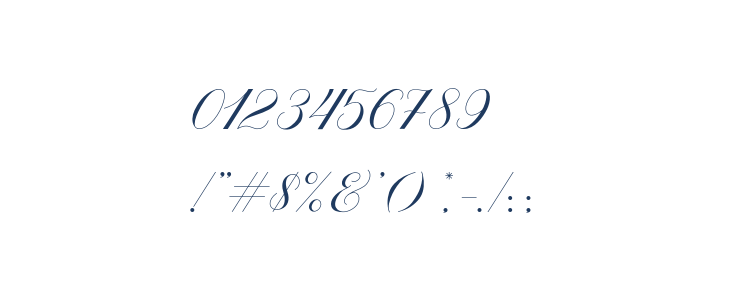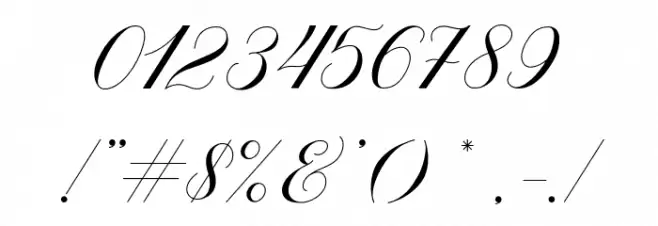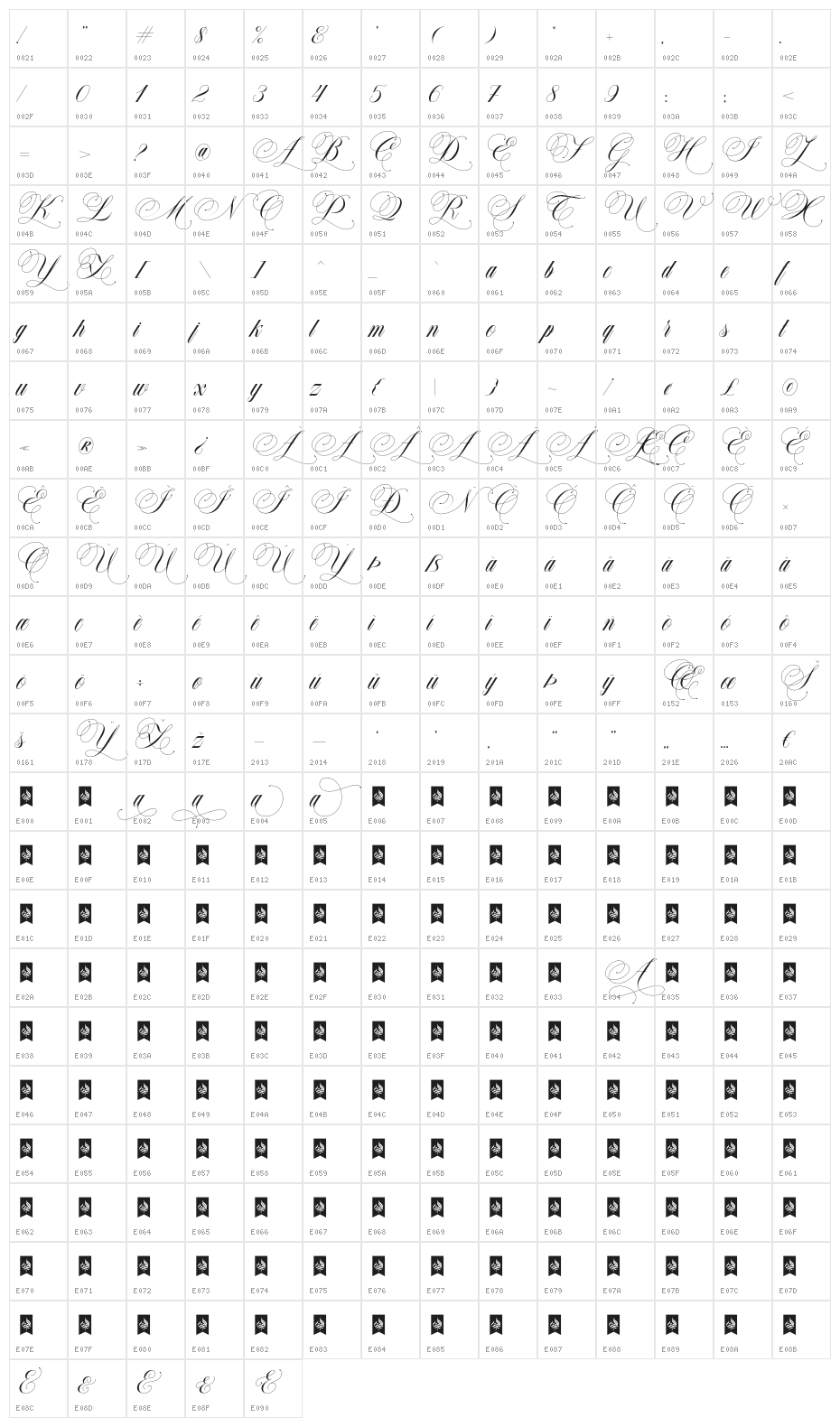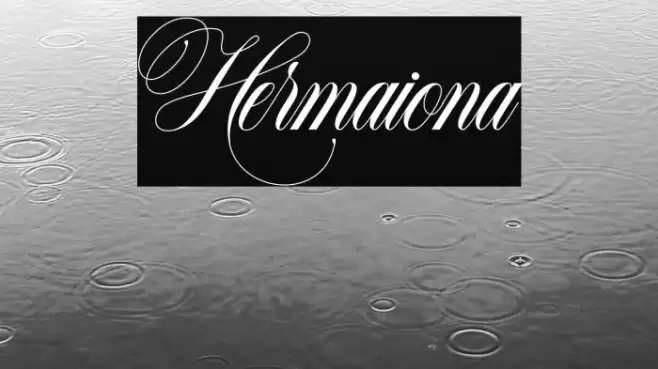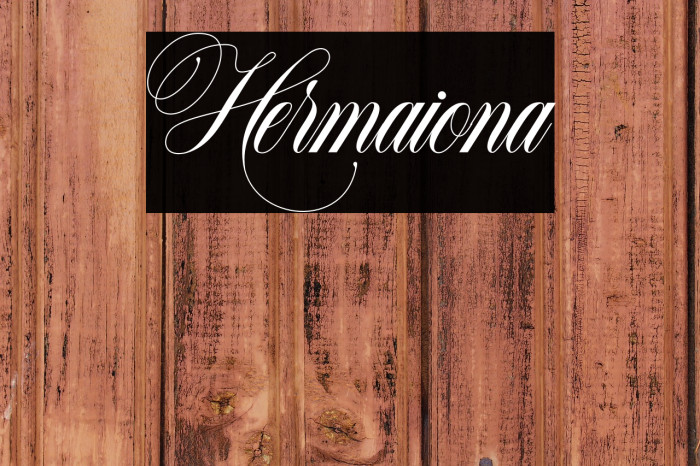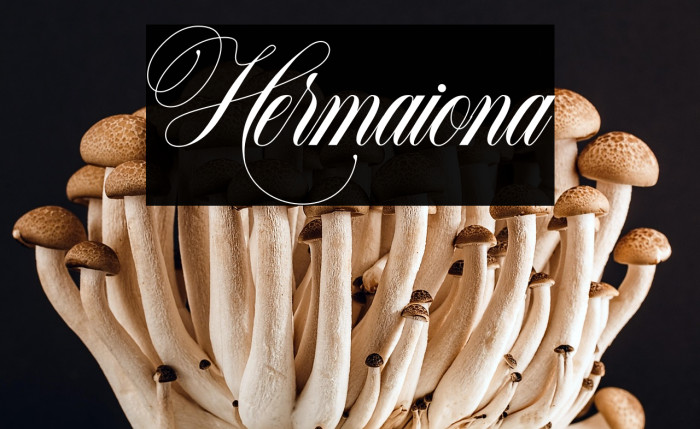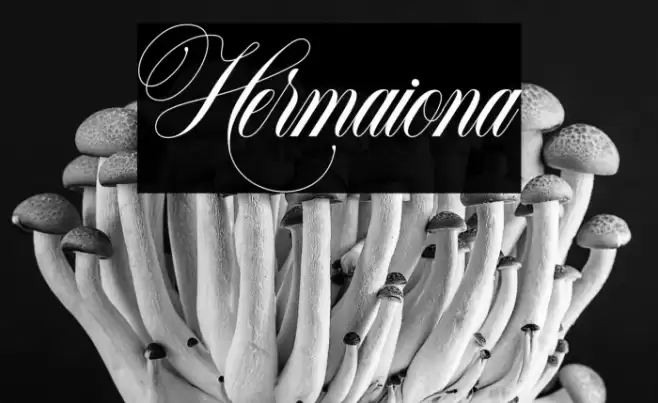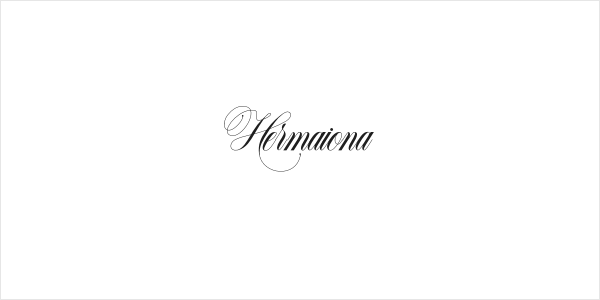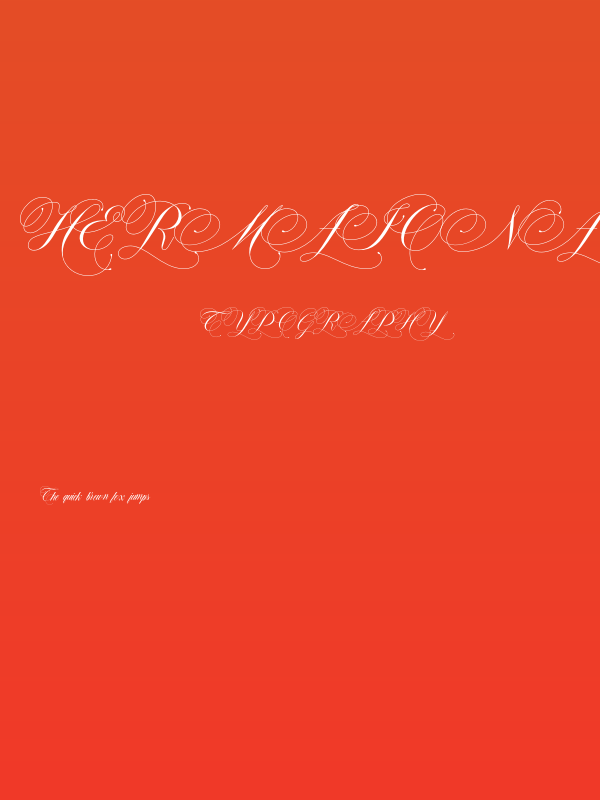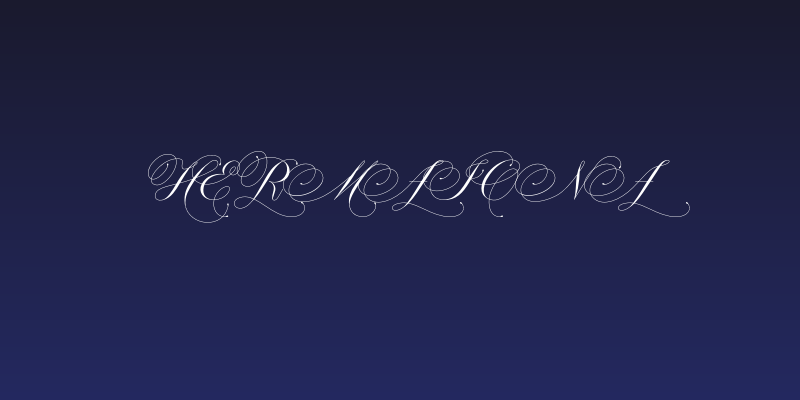
Hermaiona Font
Hermaiona Description
This elegant script font features intricate swashes and flourishes, giving it a highly decorative and sophisticated appearance. The uppercase letters are particularly ornate, with elaborate loops and curls that add a sense of grandeur and formality. The lowercase letters are more restrained but still maintain a graceful flow, making them suitable for both formal and creative applications. The numerals and special characters are designed to complement the overall style, with a consistent emphasis on elegance and readability. This font is ideal for projects that require a touch of luxury and refinement.
| Proposed Projects | Wedding invitations, luxury branding, elegant packaging, formal event programs. |